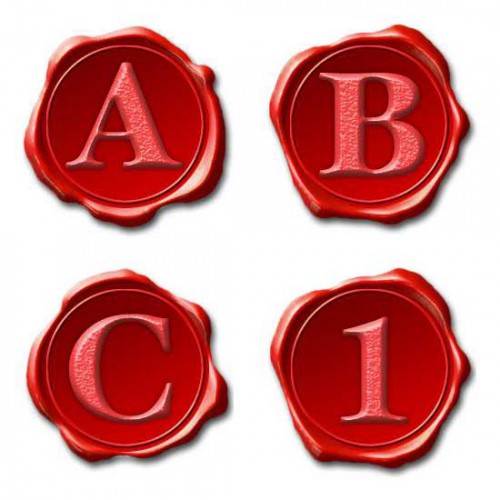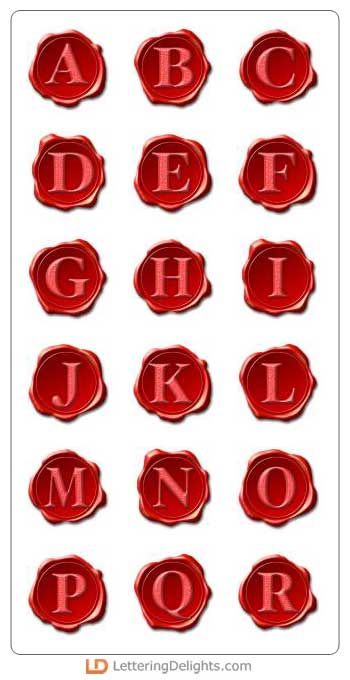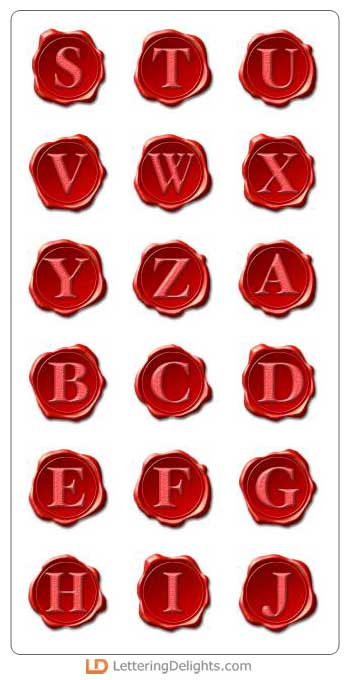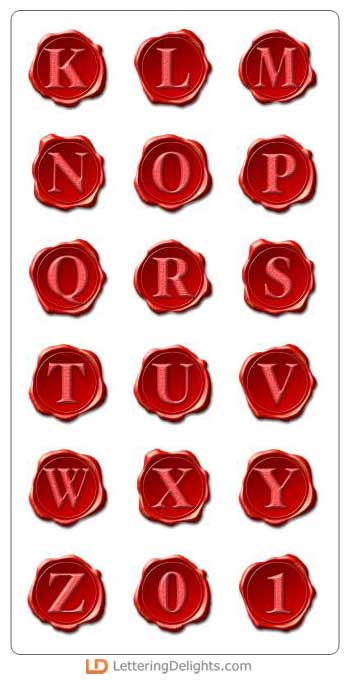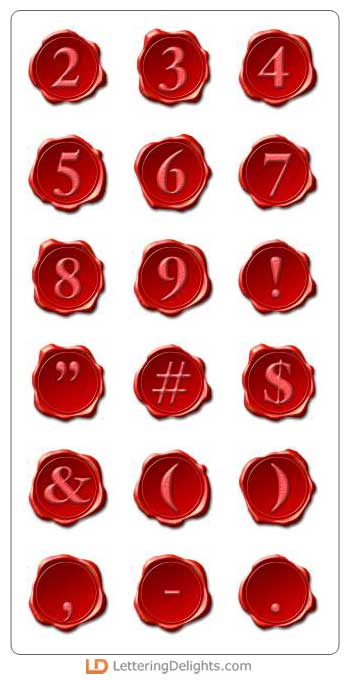
Hot Seal - AL
Each letter of this alphabet is imbedded in a glob of wax. It is similar to the wax seal that used to be placed on letters to keep them closed.